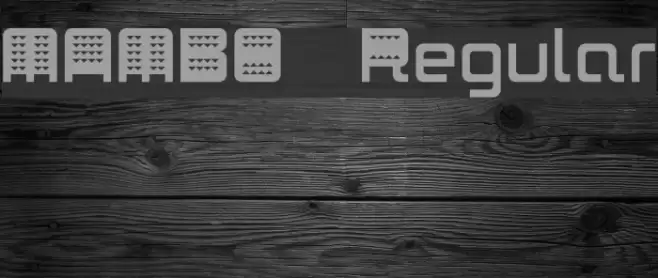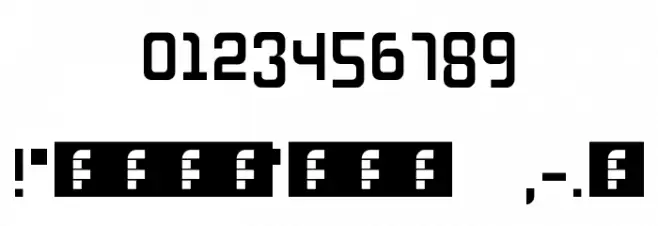
MAMBO Regular Font
MAMBO Regular Description
This font features a bold and decorative style with a unique pattern inside the uppercase letters, adding a tribal or ethnic flair. The uppercase letters are blocky and geometric, with intricate cut-out patterns that create a striking visual effect. The lowercase letters are more streamlined and sans-serif, offering a modern contrast to the ornate uppercase. The numerals are consistent with the lowercase style, maintaining clarity and readability. Special characters follow the same decorative theme, making them stand out. This font is ideal for projects that require a bold statement and a touch of cultural or artistic expression.
A bold, decorative font with patterned uppercase letters and modern lowercase from Uncategorized fonts.
- Proposed Projects: Ideal for cultural event posters, artistic branding, or unique logo designs.